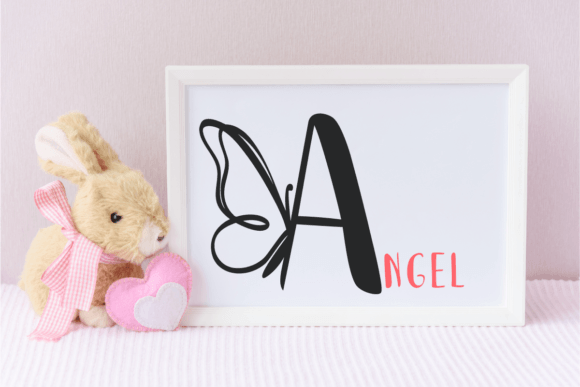
Butterfly Font
Butterfly is a decorative font where each letter looks like it has butterfly wings. The wings make the letters look pretty and unique, giving a fun and whimsical feel to the text.